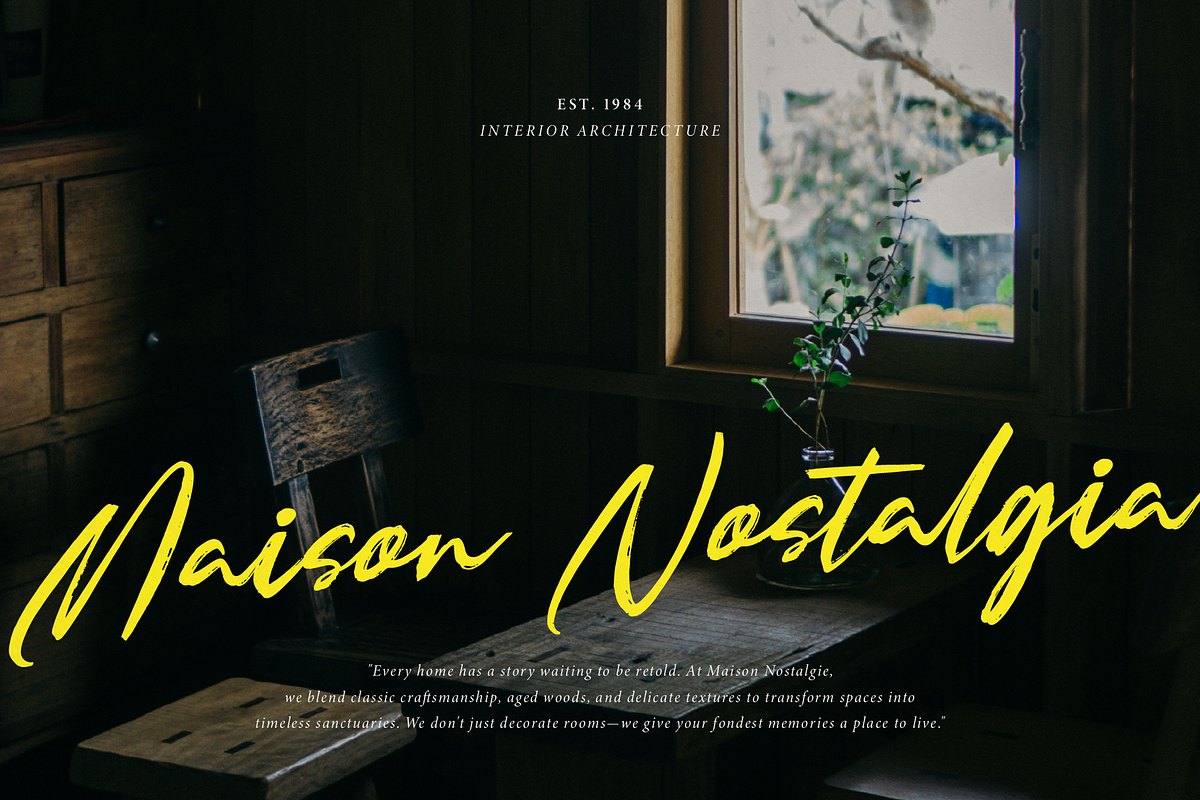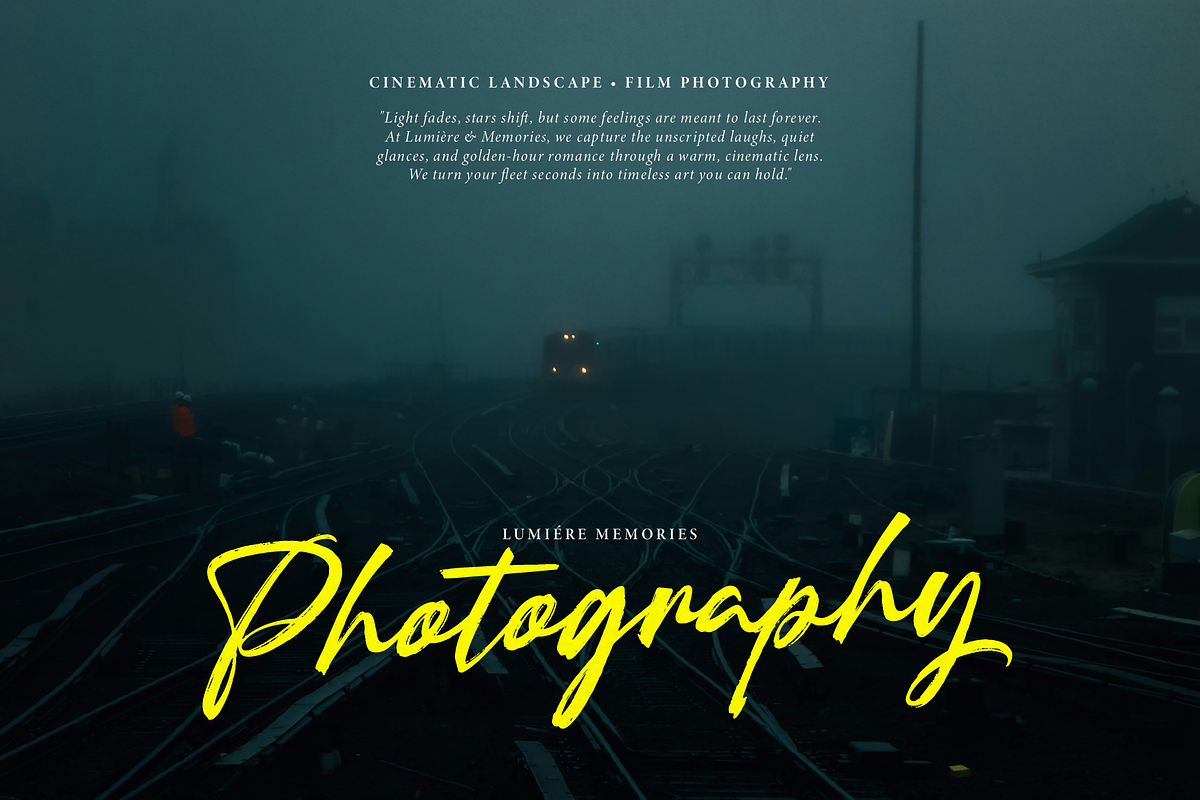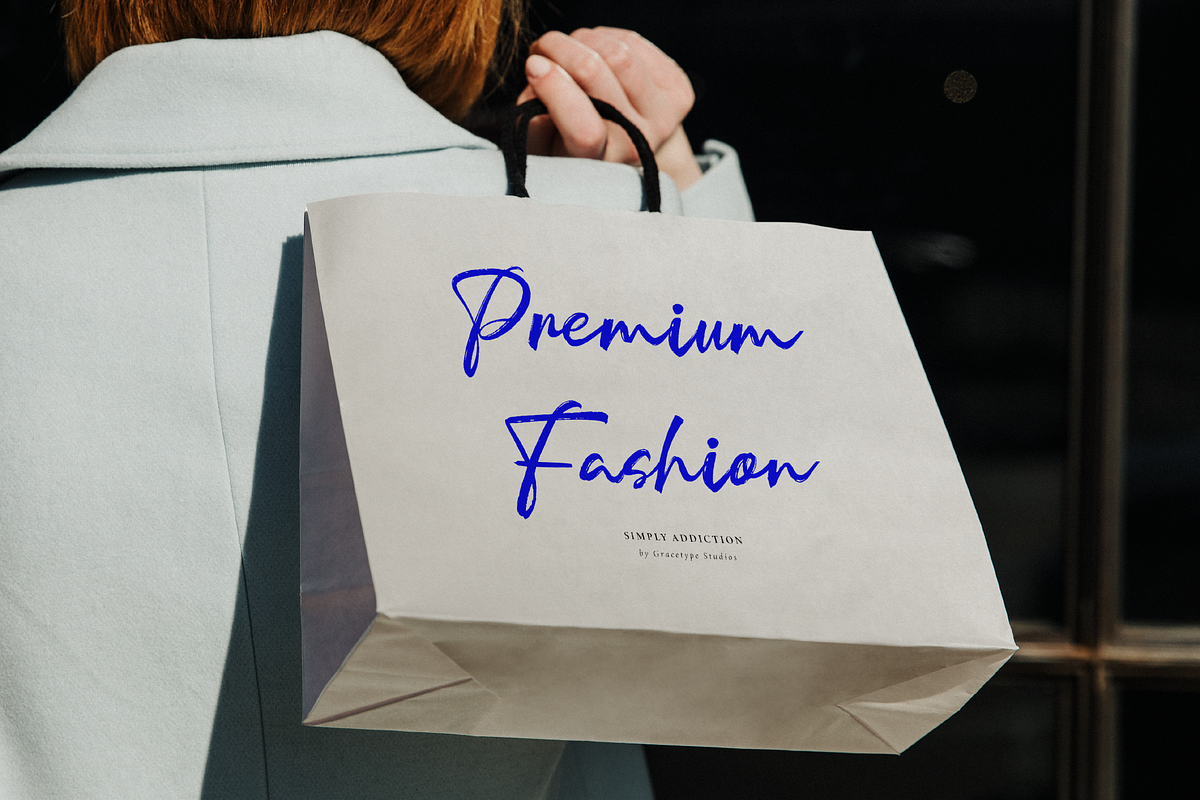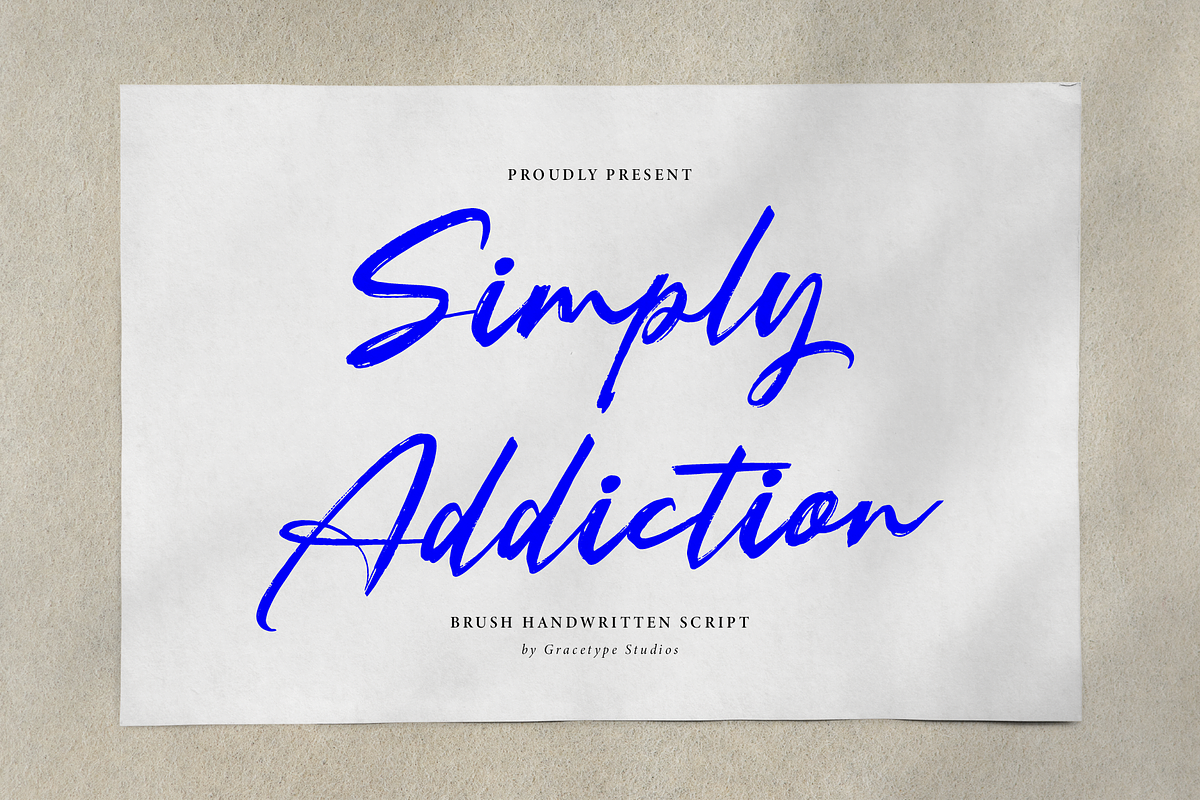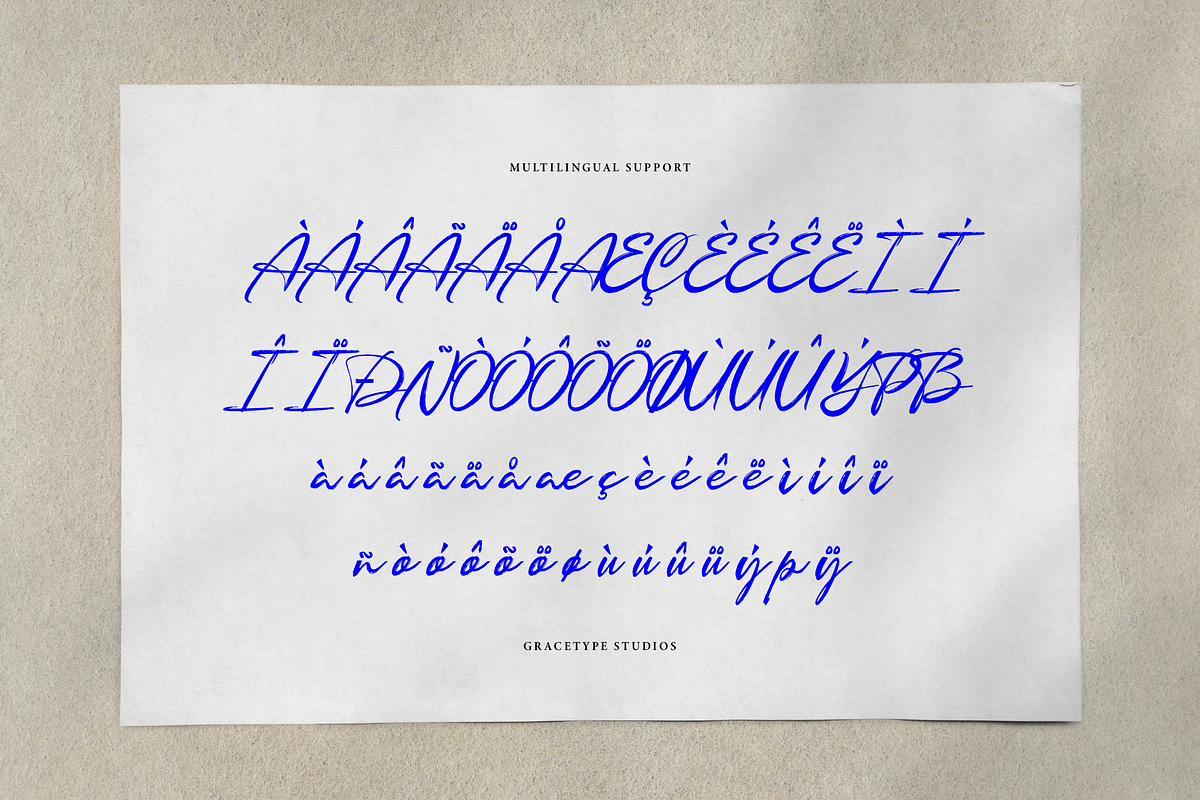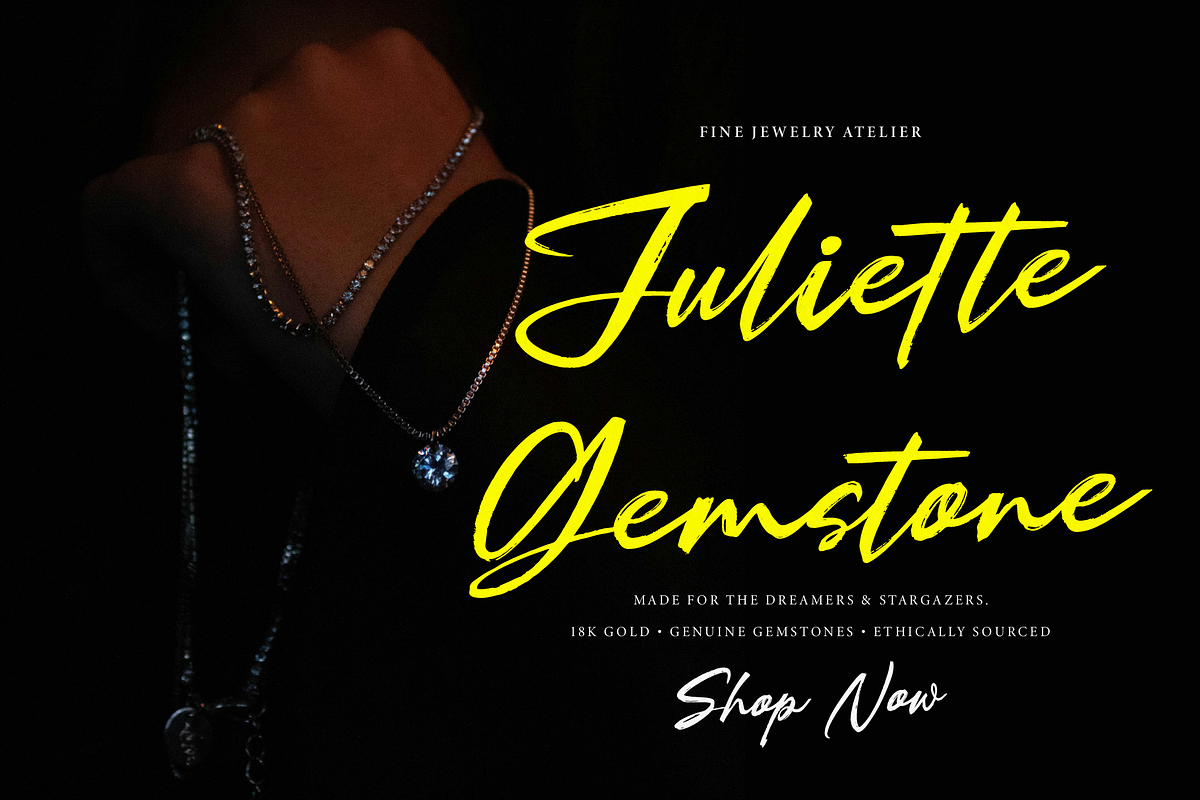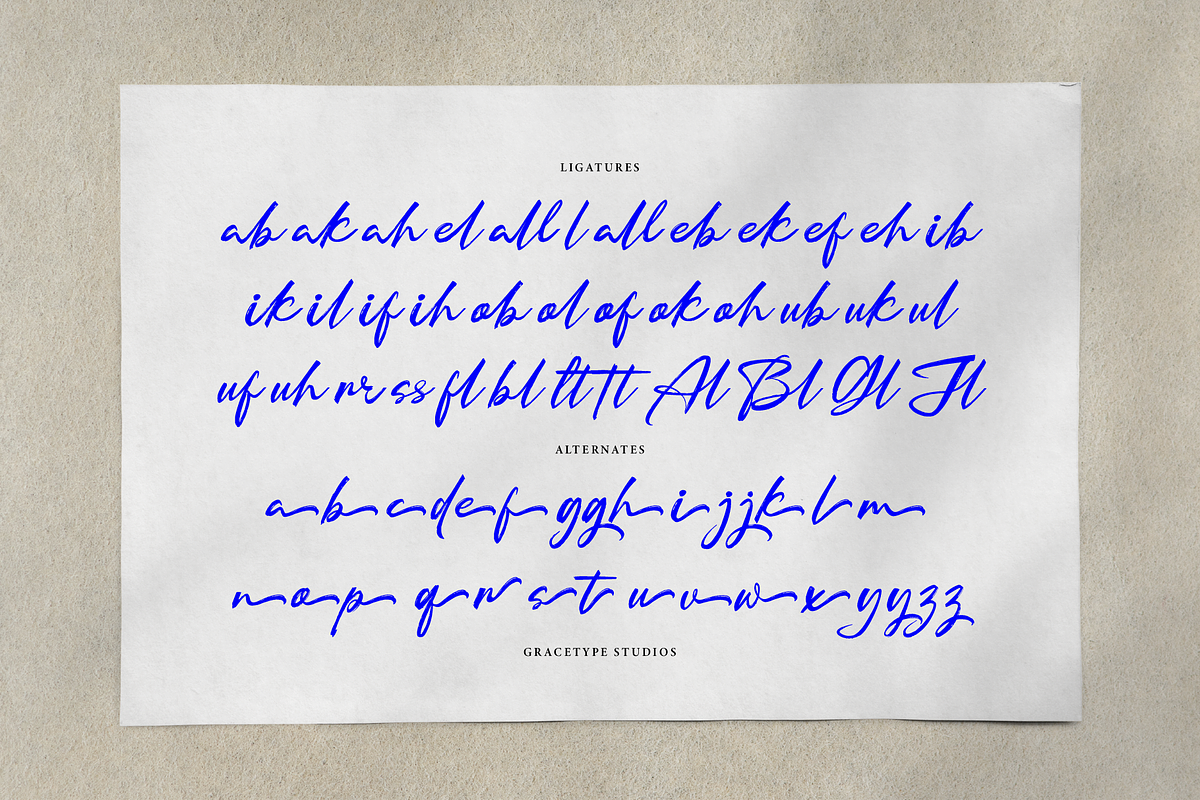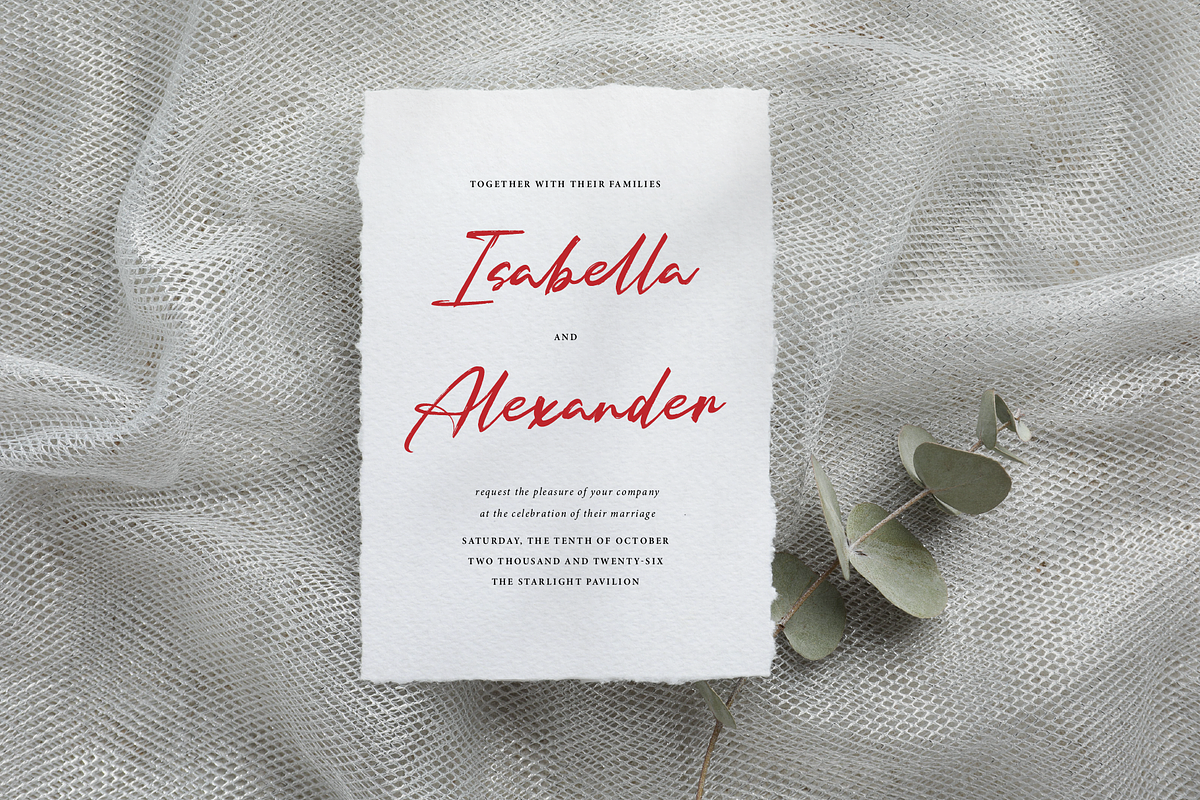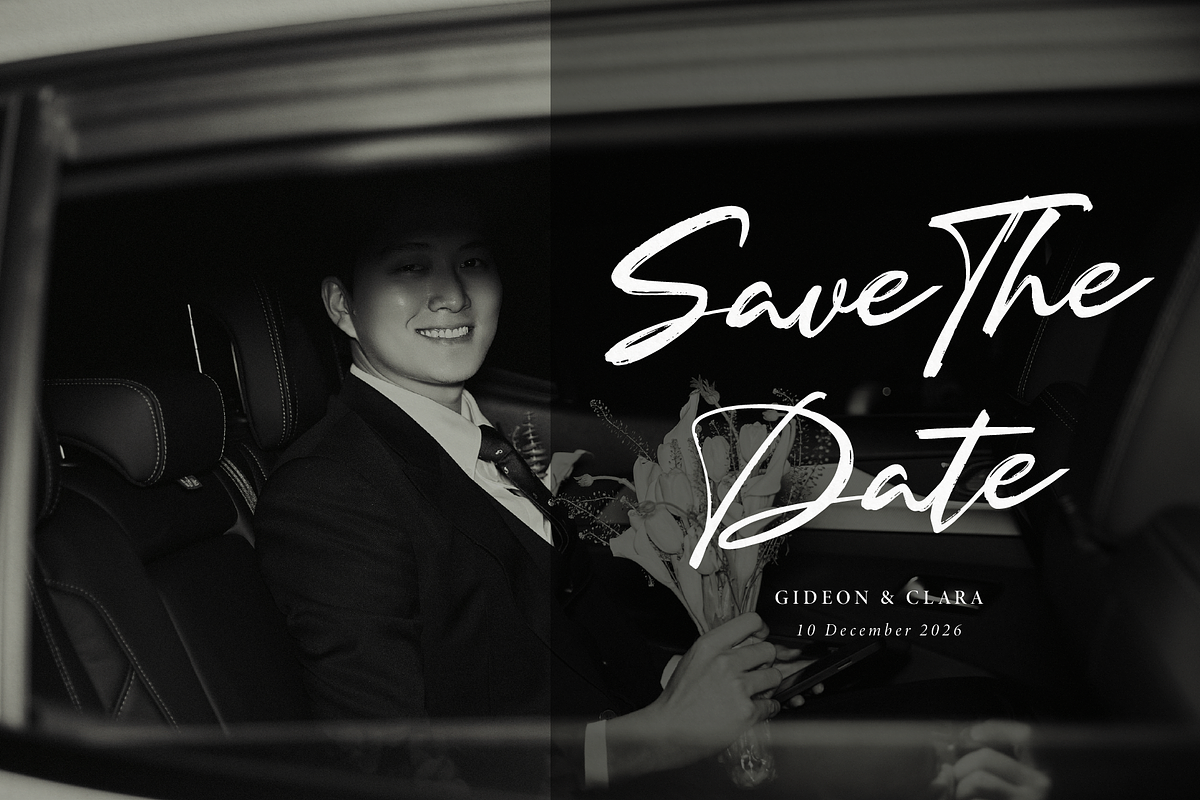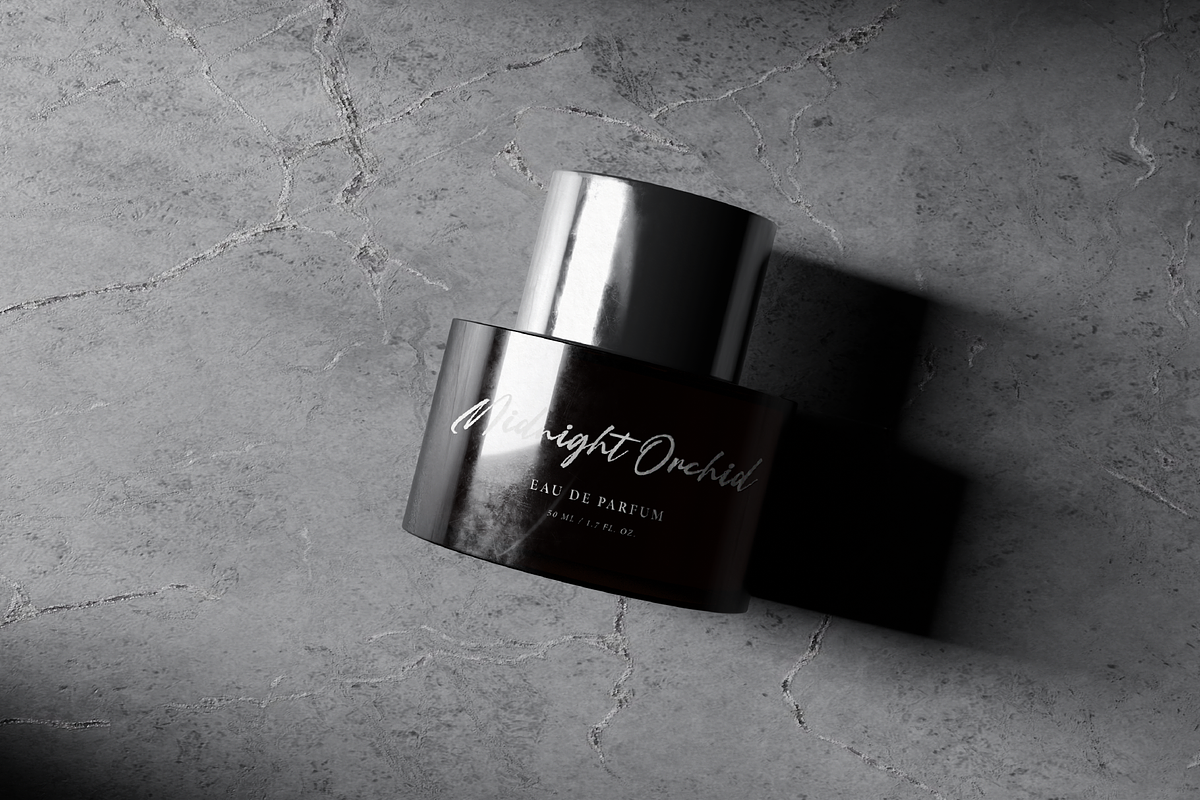
Simply Addiction Brush Handwritten
Simply Addiction | Brush Handwritten Script, from Gracetypestudio, suitable for any projects such as: logos, branding projects, homeware designs, product packaging, mugs, quotes, posters, shopping bags, t-shirts, book covers, name card, invitation cards, greeting cards, label, photography, watermark, special events, and all your other lovely projects that need a Script taste.
Standard glyphs
Alternate and Ligature
Fonts include multilingual support